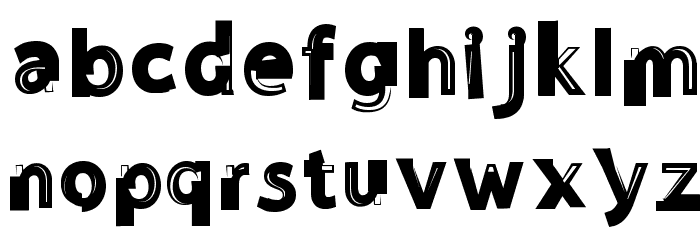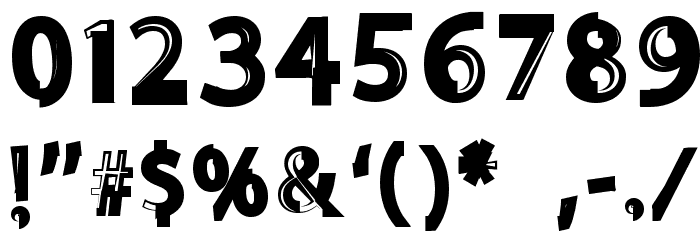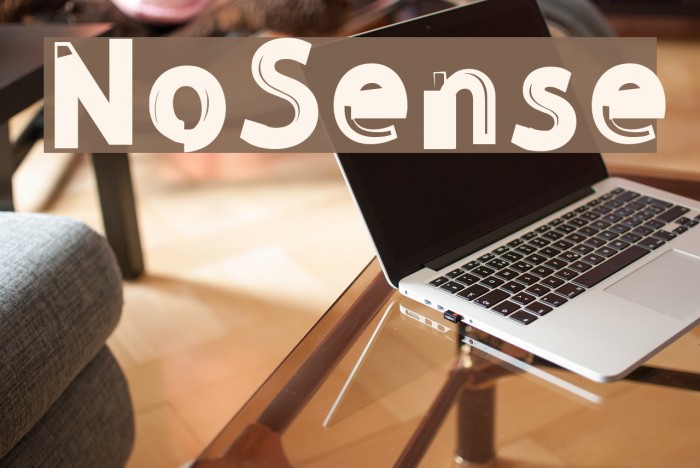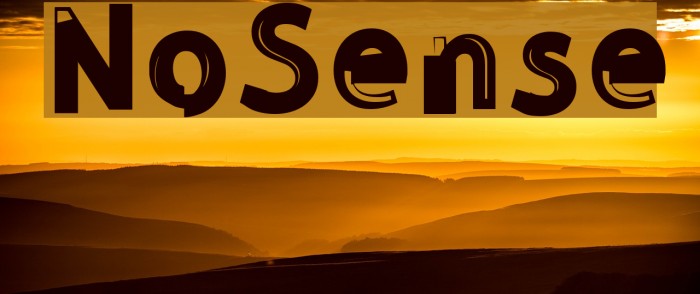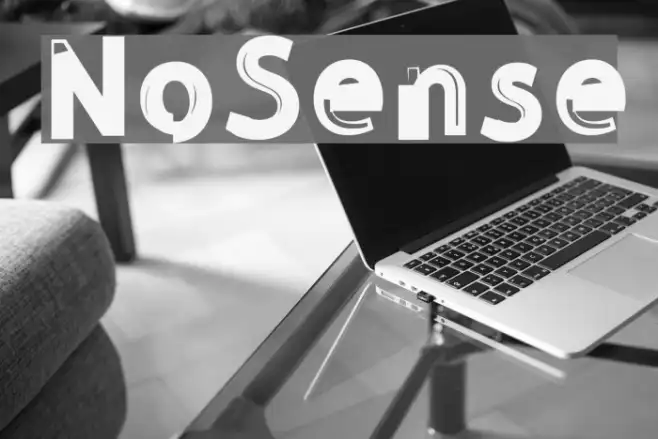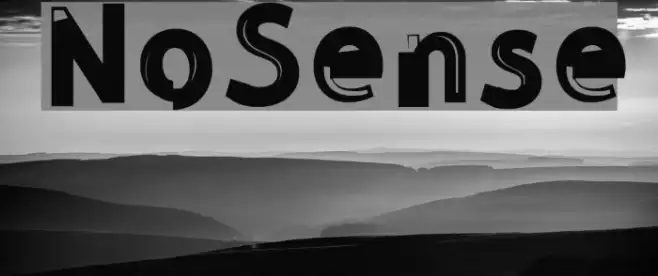
NoSense Font
This font features a bold and playful design with a unique blend of geometric and abstract elements. Each character is crafted with a distinct style, incorporating both solid and outlined forms that create a dynamic visual effect. The uppercase letters are particularly striking, with varying thicknesses and unexpected angles that add a sense of movement and energy. The lowercase letters maintain this playful aesthetic, offering a cohesive look across the alphabet. Numbers and special characters are equally bold, ensuring consistency throughout the typeface. This font's unconventional style makes it a standout choice for creative projects.
A bold, playful font with geometric and abstract elements.
- Proposed Projects: Ideal for posters, album covers, branding, and creative digital content.